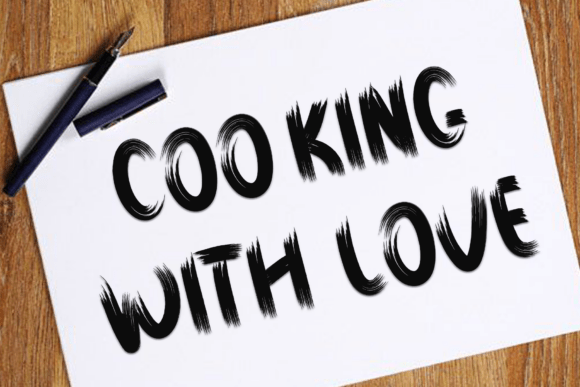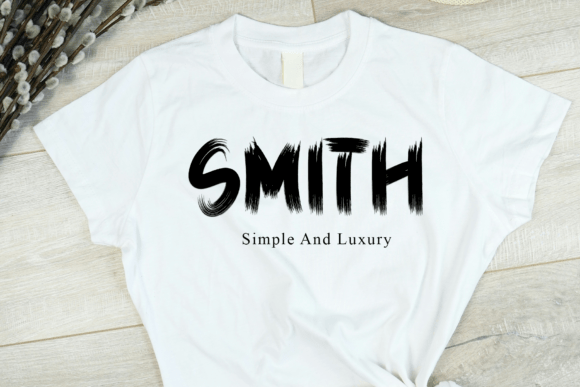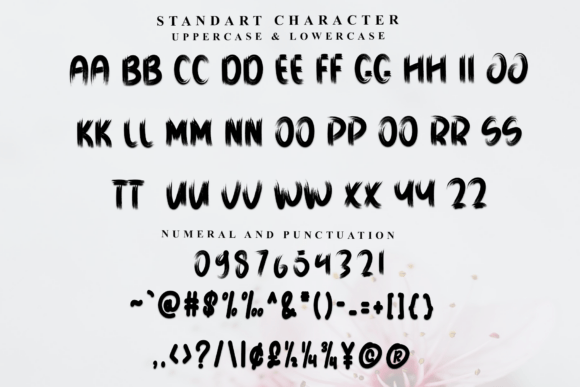
Introduction to Simple Brush Font
As a designer, there’s nothing quite like the feeling of capturing the magic of the holiday season in your work. It’s a time for creativity, experimentation, and bringing joy to others through your designs. Whether it’s a festive greeting card, a holiday-themed gift tag, or a whimsical winter wonderland scene, the right font can make all the difference.
That’s where the Simple Brush Font comes in – a delightful, festive typeface that’s sure to add a touch of enchantment to your designs. With its decorative elements and whimsical flair, this font is the perfect addition to any holiday-themed project. And the best part? It’s free to download, making it an invaluable resource for designers of all levels.
Key Features of Simple Brush Font
- High-quality, hand-drawn design ideal for creative projects and artistic expressions.
- Unique characteristics include subtle texture and imperfections, adding a touch of organic feel to designs.
Honest Review: Simple Brush Font
I recently had the chance to work with the Simple Brush Font, and I must say it’s been a game-changer for my creative projects. This free download is a high-quality design resource that I’ve been using extensively in my designs.
- High-quality and detailed brush strokes that give a unique touch to any design.
- Works well with transparent backgrounds, making it easy to overlay on any image or graphic.
- Easy to customize and style to fit any creative project.
- The font is a bit limited in terms of font styles and variations.
- It may not be suitable for large-scale text or body text due to its brush-like appearance.
Overall, I’m really impressed with the Simple Brush Font. It’s a great addition to any designer’s toolkit, and I highly recommend it for creative projects that require a unique and personalized touch. Whether you’re working on a logo, poster, or social media graphic, this font is sure to add a professional and creative flair to your design.
How to Use Simple Brush Font
The Simple Brush Font is a high-quality design resource that can elevate any creative project. With its unique, hand-drawn style and transparent background, it’s perfect for designers looking for a free download to add some personality to their work.
For the best results, use the Simple Brush Font in combination with other design elements that complement its unique style. Experiment with different font sizes, colors, and arrangements to find the perfect look for your project.
The Simple Brush Font is perfect for a variety of creative projects, including branding, packaging, and editorial design. Its versatility and high-quality design make it a valuable resource for designers of all levels.
Alternatives to Simple Brush Font
1. Brush Script
Brush Script is a high-quality, free download font perfect for creative projects requiring a touch of elegance. It features a transparent background and is ideal for use in wedding invitations, branding, and other design resources.
Compared to Simple Brush Font, Brush Script has a more refined and sophisticated look, making it suitable for professional projects. It’s also highly customizable, allowing designers to adjust the font to fit their specific design needs.
Great Vibes is a beautiful, free font that’s perfect for designers looking for a high-quality alternative to Simple Brush Font. It features a unique, hand-painted style that’s ideal for use in creative projects, such as magazine covers, posters, and social media graphics.
Great Vibes has a more playful and whimsical feel compared to Simple Brush Font, making it suitable for projects that require a bit of personality and flair. It’s also highly versatile and can be used in a variety of design contexts.
3. Alex Brush
Alex Brush is a elegant, high-quality font that’s perfect for designers looking for a sophisticated alternative to Simple Brush Font. It features a beautiful, hand-painted style that’s ideal for use in branding, packaging, and other design resources.
How do I get a transparent background for the Simple Brush Font?